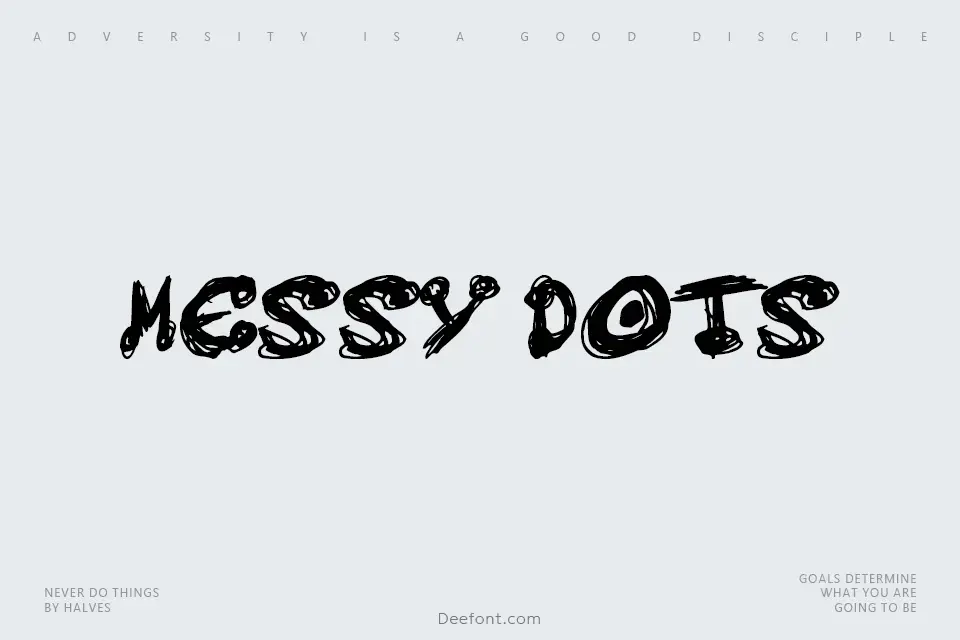
Messy Dots Font
Messy Dots font is a rough, dotted script where every letter looks splattered with ink, creating a chaotic, hand-drawn texture that instantly grabs attention. Its messy, grunge energy makes it ideal for Halloween posters, horror movie titles, edgy logos, zines, album covers, party flyers and any design that needs a wild, rebellious vibe.